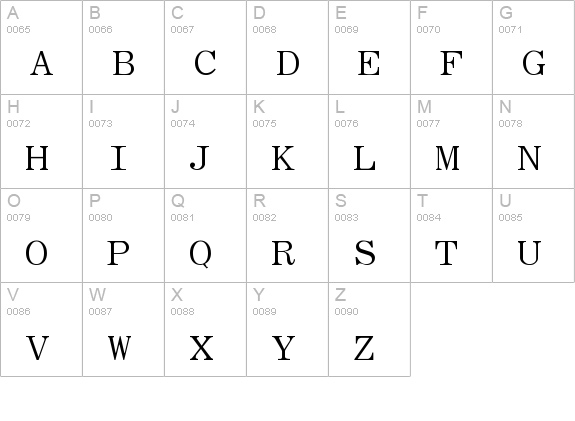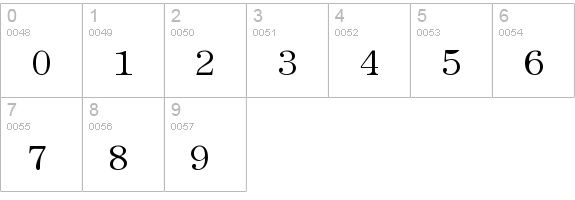
Elite Font Details
Introducing Elite font, a stunning and sophisticated typeface that exudes elegance and modernity. With its sleek and stylish design, Elite font is perfect for adding a touch of sophistication to your projects. Whether you're designing a logo, creating a poster, or working on a branding project, Elite font is sure to make a statement. The best part? Elite font is completely free to download! You can get your hands on this gorgeous font at FontsMarket.com, where you'll find a wide range of high-quality fonts available for free download. Don't miss out on the opportunity to elevate your designs with the Elite font - download it today and take your projects to the next level.